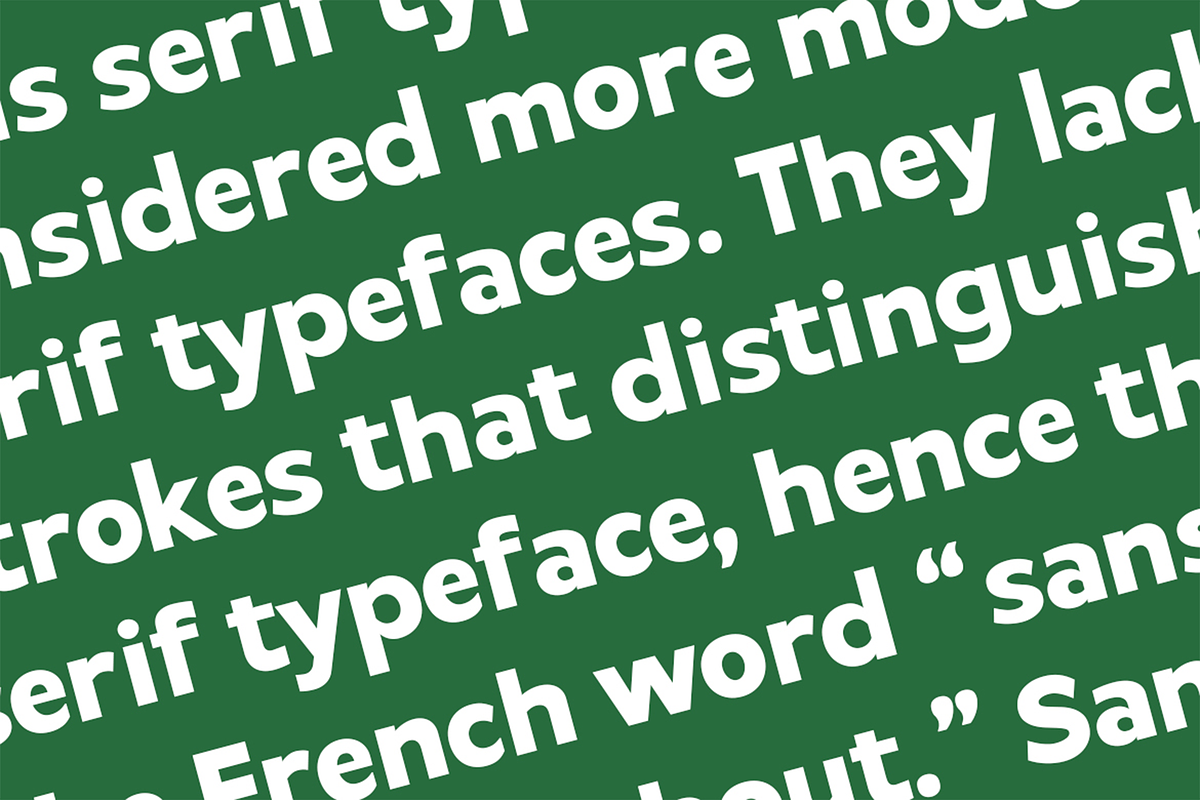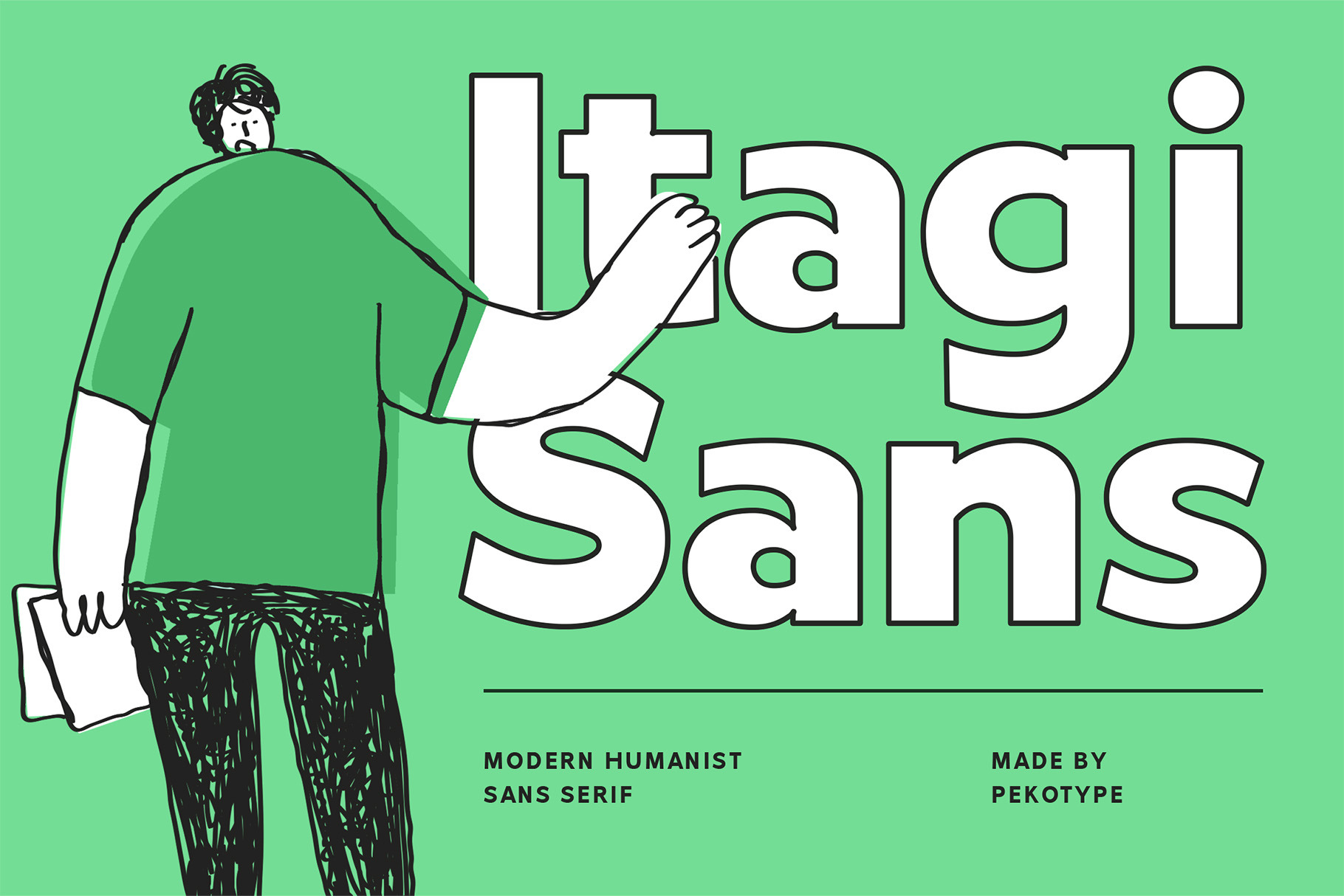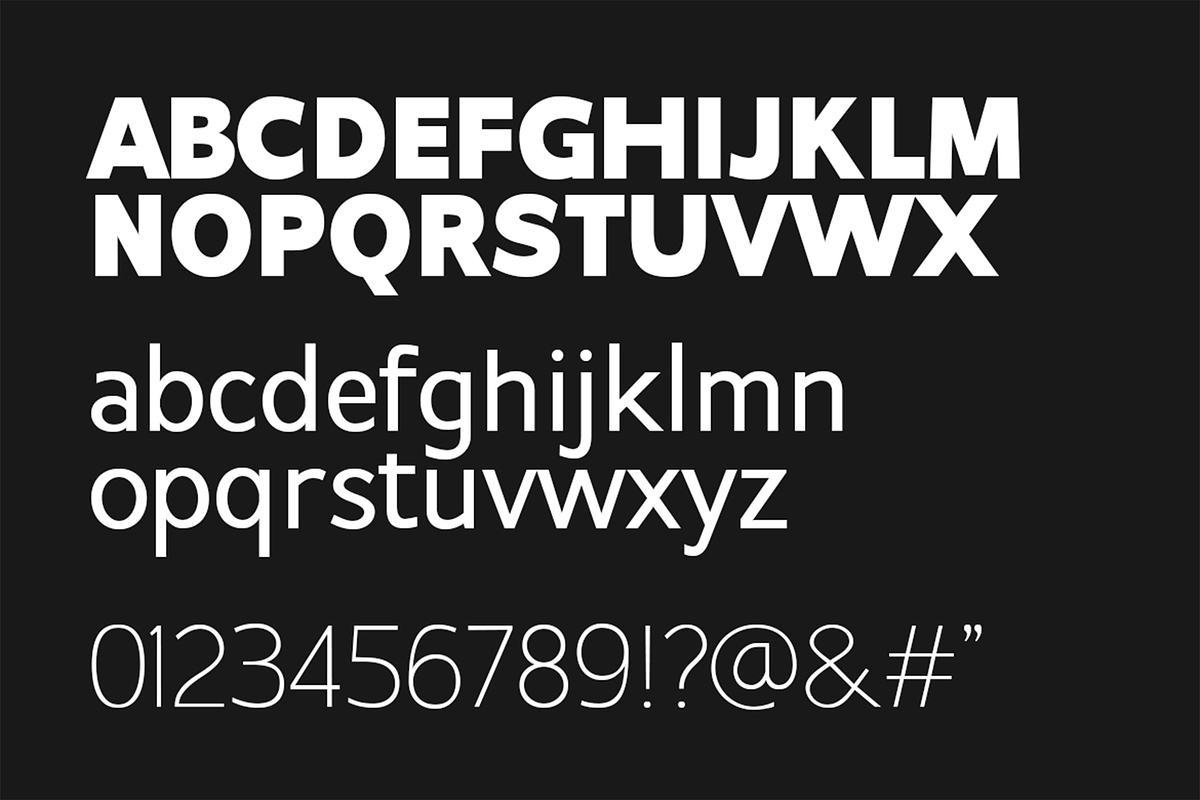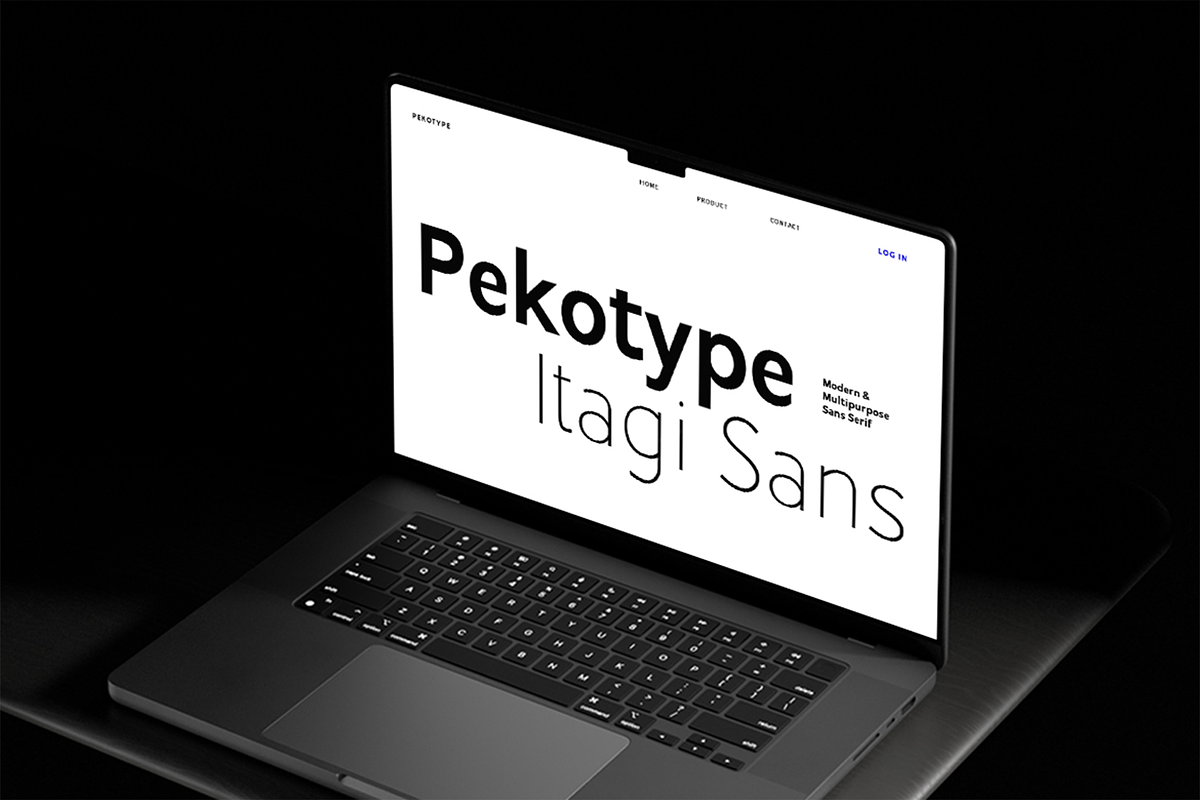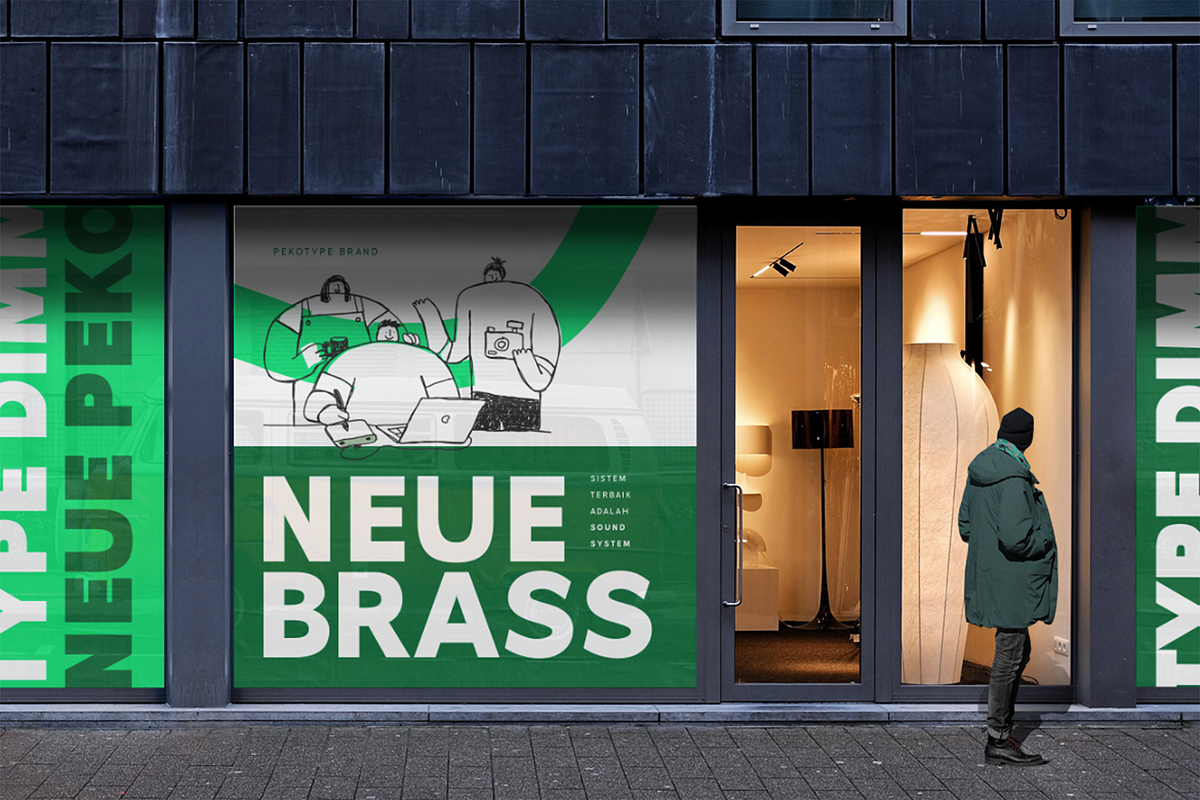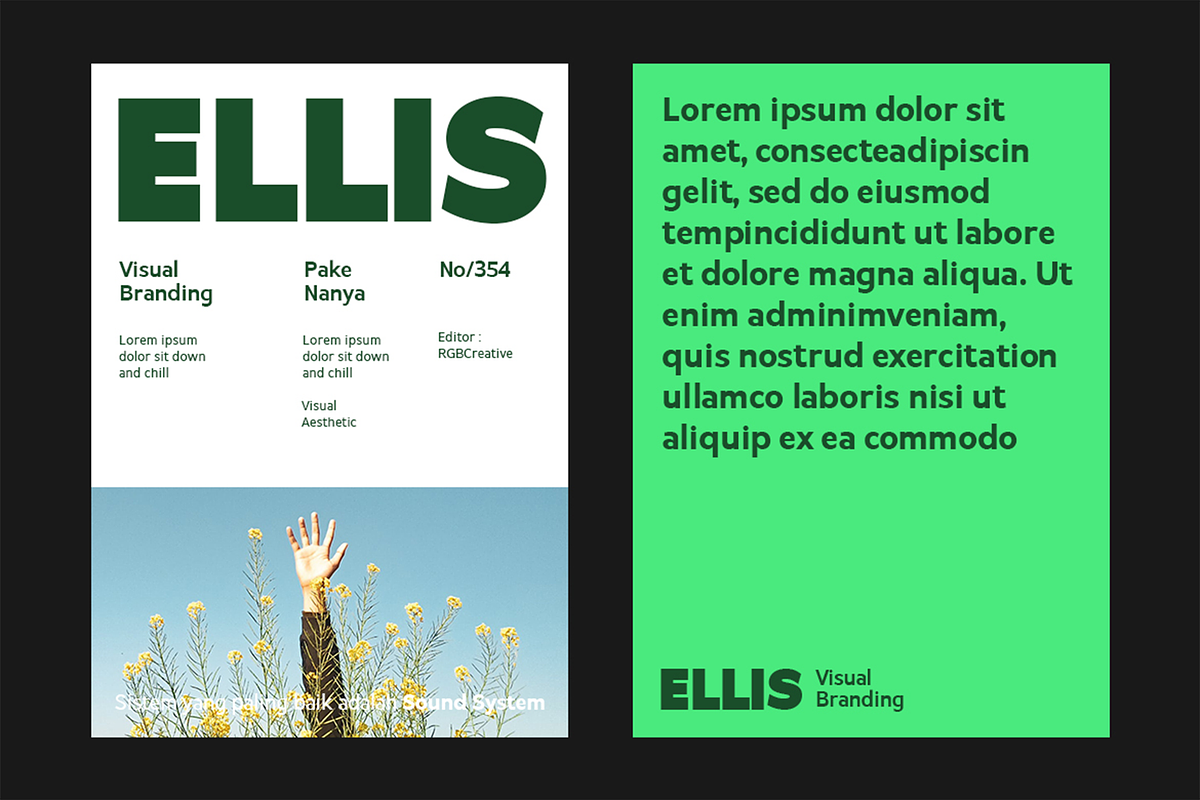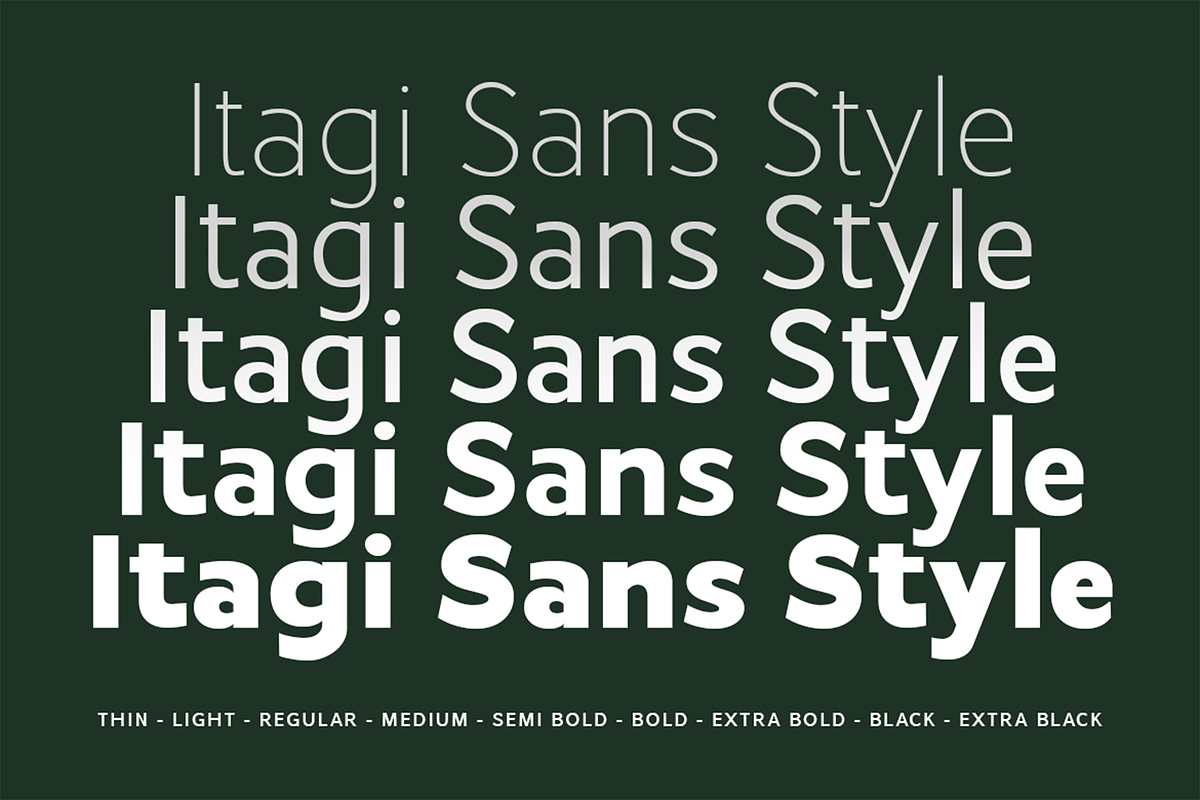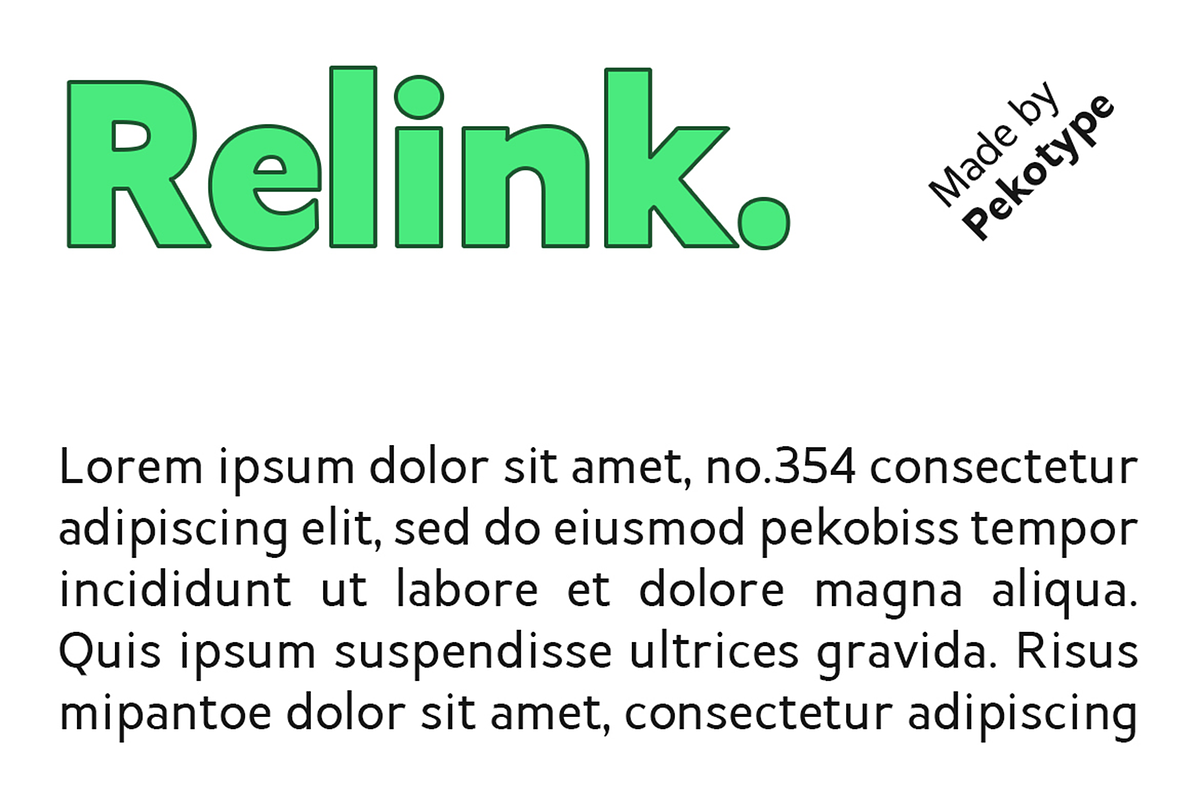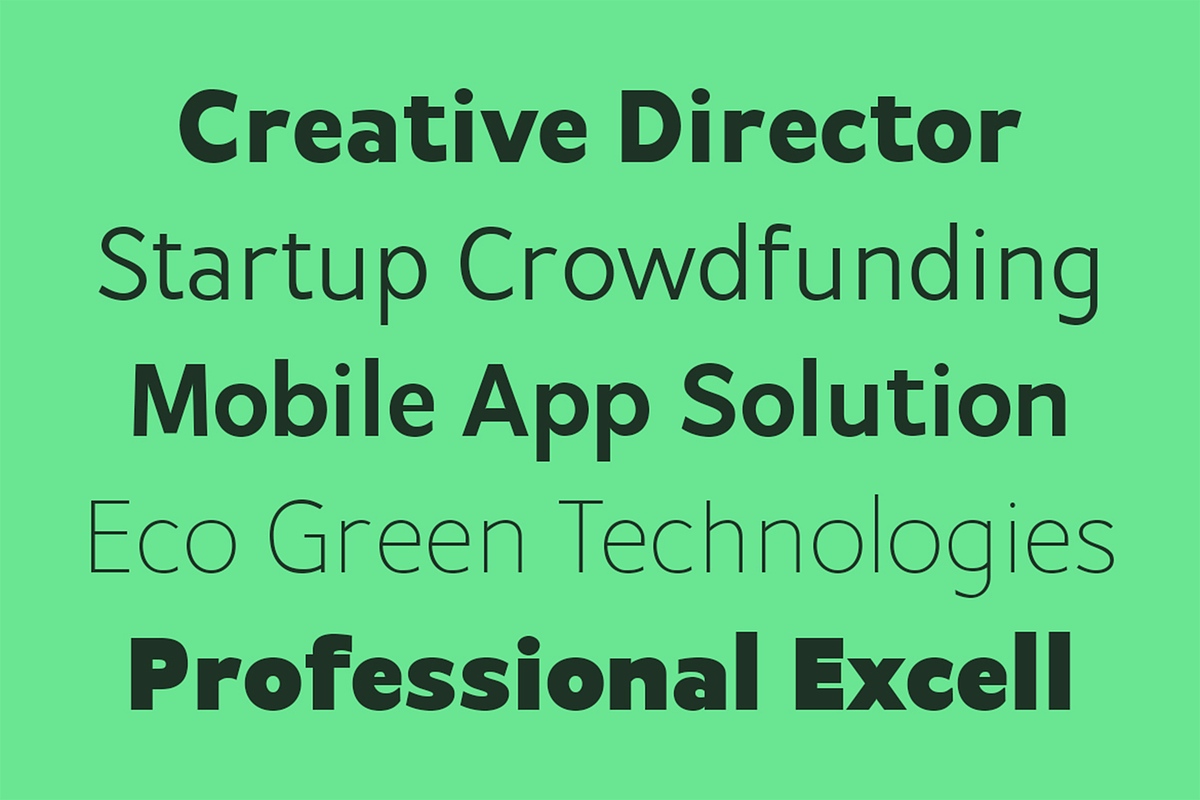
Itagi Sans - Modern Humanist Font
ITAGI SANS is a modern and humanist sans-serif typeface. ITAGI SANS ensures readability, making it perfect for both large and small text. Whether you're working on a headline or detailed content, ITAGI SANS maintains a clean and professional look. This versatile font combines a contemporary style with easy readability, making it a reliable choice for various design projects.